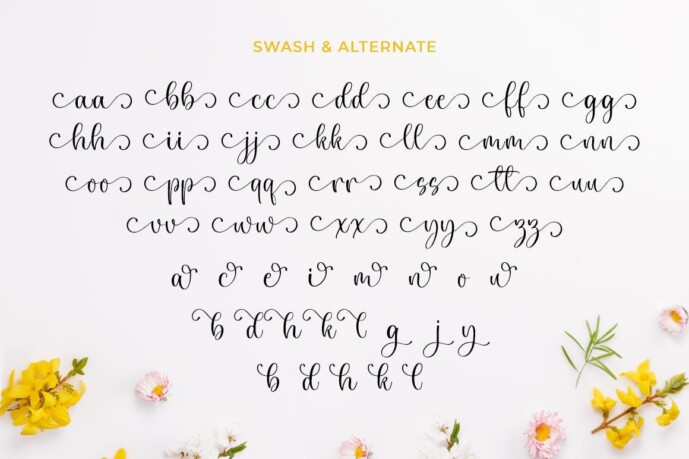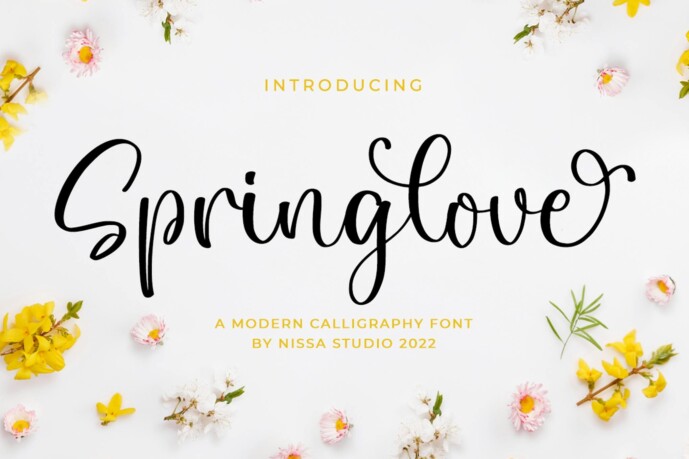
Springlove Font
Springlove Font is a charming and delicate typeface that exudes elegance and class. It is perfect for those who need a beautiful and refreshing look for their creations.